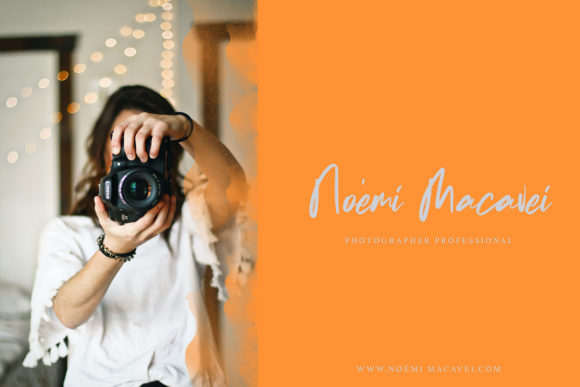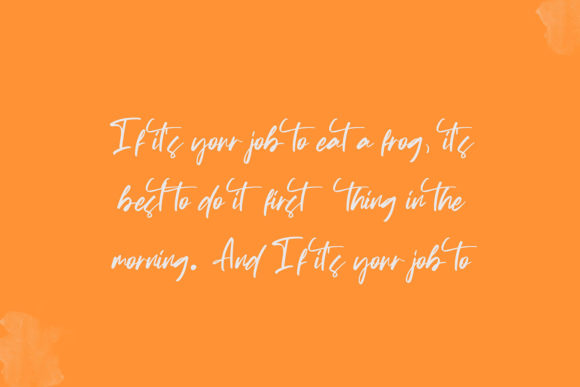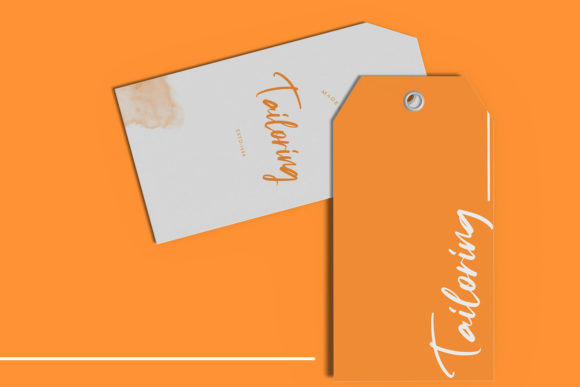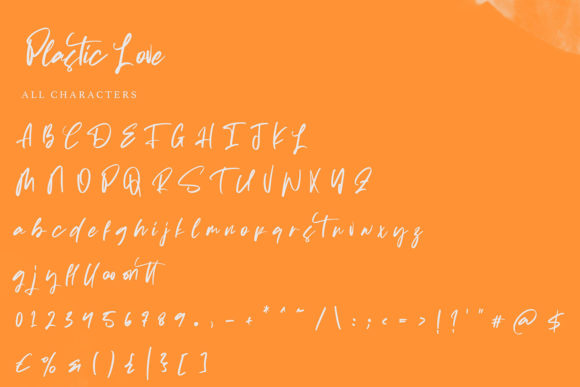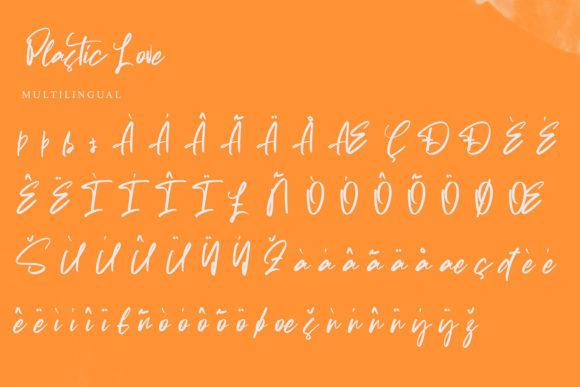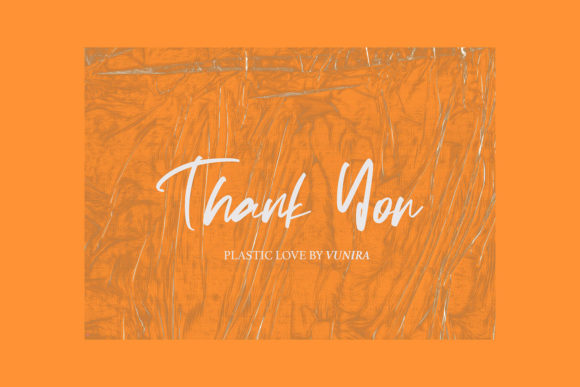
Introduction to Plastic Love Font
Do you remember the moment when a simple, handwritten note made your day? Maybe it was a heartfelt thank you from a loved one or a sweet love letter from a partner. Whatever it was, that moment was made special because of the personal touch and love that went into writing it. The Plastic Love Font is one such treasure that can bring that same magic to your designs.
This beautiful, high-quality font is perfect for adding a handwritten touch to your creative projects. With its transparent background and elegant, cursive script, it’s a design resource that can elevate any project, from wedding invitations to greeting cards. And the best part? It’s available for a free download, making it a valuable addition to any designer’s toolkit.
Key Features of Plastic Love Font
- High-quality, unique font design perfect for creative projects.
- Features a transparent background, ideal for use with background images or videos.
- Font size: 1,000 characters; Resolution: 72 dpi, suitable for digital use.
- Unique characteristics include bold, playful lettering and a futuristic aesthetic.
- Perfect for use in graphic design, digital art, and other creative projects where a distinctive font is needed.
Honest Review: Plastic Love Font
As a designer, I was excited to dive into the world of the Plastic Love Font. This font is a fantastic addition to any design resource collection, offering a unique and quirky aesthetic that’s perfect for creative projects.
What works well: ✨ The font’s high quality is immediately apparent, with crisp lines and a clean design that makes it easy to read. The transparent background is also a major plus, allowing for seamless integration with any design. I particularly appreciate the bold and playful feel of the font, which makes it a great choice for projects that need a bit of personality.
- High-quality design with crisp lines and clean typography
- Bold and playful feel perfect for creative projects
However, I did encounter a few limitations: ⚠️ The font is only available in a limited range of weights and styles, which may not be suitable for every project. Additionally, while the free download is a great perk, I wish there were more options for customization or additional features.
Overall, I’m impressed with the Plastic Love Font and would recommend it to designers looking for a unique and high-quality font for their creative projects. While it may not be perfect, its strengths far outweigh its limitations, making it a valuable addition to any design resource collection.
The Plastic Love Font is a unique and high-quality design resource that can add a touch of creativity to your projects. This font features a transparent background, making it versatile for various applications.
The Plastic Love Font is ideal for various creative projects, including:
- Social media graphics and advertisements.
- Presentations and reports.
- Wedding invitations and event materials.
Alternatives to Plastic Love Font
Pacifico is a high-quality, elegant script font that works well for creative projects requiring a touch of sophistication. It’s perfect for designing wedding invitations, quotes, or any other design where a romantic feel is desired. Pacifico’s transparent background makes it easy to overlay on images or backgrounds, making it a versatile design resource. When compared to Plastic Love Font, Pacifico has a more refined and polished look.
Great Vibes is a fun, cursive font ideal for creating a playful atmosphere in your design project. Its high-quality design and transparent background make it suitable for use on a variety of backgrounds, from simple to complex. Great Vibes is a great alternative to Plastic Love Font for designers looking to add a lighthearted feel to their work. Its free download option makes it an excellent choice for designers on a budget.